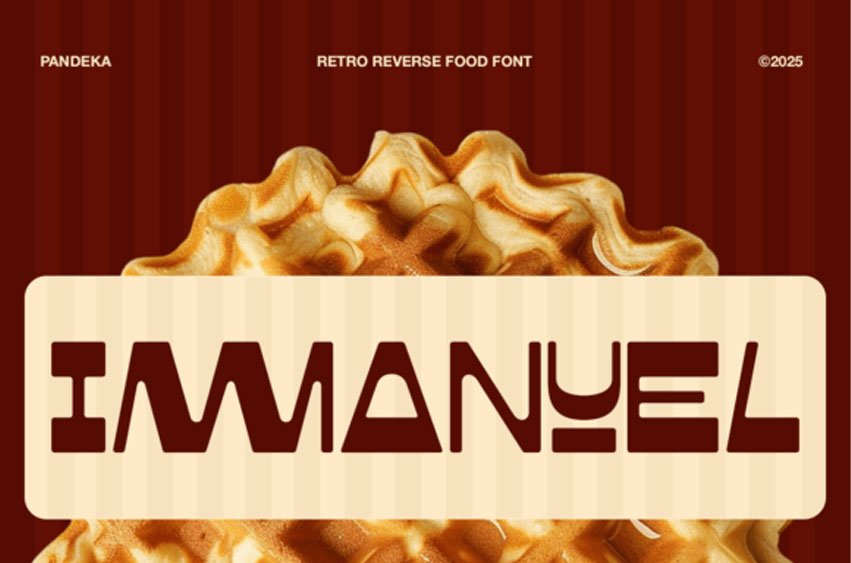
Immanuel Font
Immanuel Font Immanuel is a playful retro reverse food font available in 2 styles: Regular and Rough, inspired by vintage food packaging, classic diner signage, waffle shops, and nostalgic culinary branding.
This Immanuel typeface features thick horizontal strokes and slender verticals, creating a playful, top-heavy look that is perfect for food branding, cafe logos, and vintage-style packaging. Whether you are designing for a bakery or a trendy diner, the Immanuel font brings a quirky, appetizing personality to every word. Its bold presence ensures your headlines stand out, while the Immanuel typeface maintains a friendly, approachable vibe that captures the fun of retro typography.
Featuring bold reversed letterforms, soft curves, and chunky proportions, Immanuel delivers a warm, tasty retro feel that instantly grabs attention.
With 5+ built-in ligatures, Immanuel allows smoother letter connections and more expressive typography, making your designs feel more handcrafted and unique. This font is perfect for food logos, restaurant branding, café menus, snack packaging, bakery labels, food truck signage, posters, social media graphics, and retro culinary merchandise.